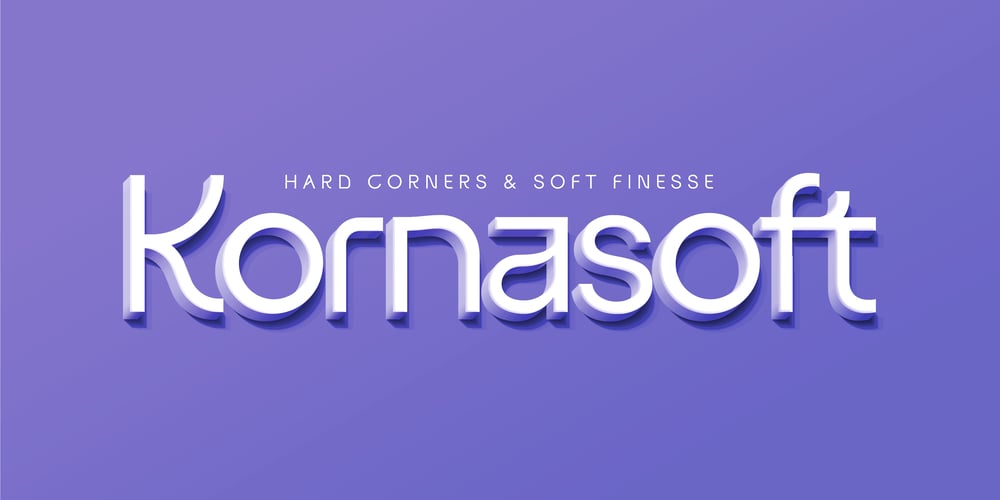
Kornasoft Font Family was designed by Ole-Jørgen Ramstad and published by OJR Design. Kornasoft contains 6 styles and family package options. Kornasoft is a typeface with hard corners, straight lines and smooth curves. The typeface is influenced by dance, movement and music culture. Kornasoft is a combination of a simple looking font, yet with personality and edge to it. Kornasoft is mainly designed to be a display font, but it can also be used as quantity text.